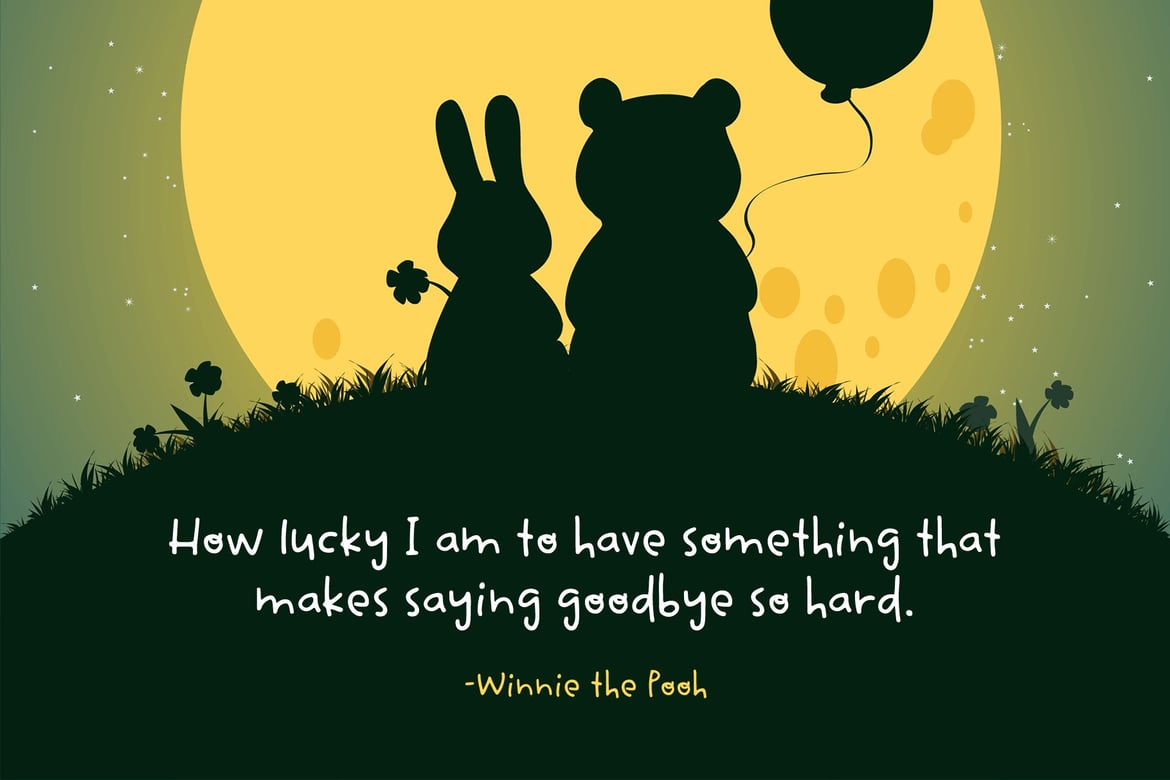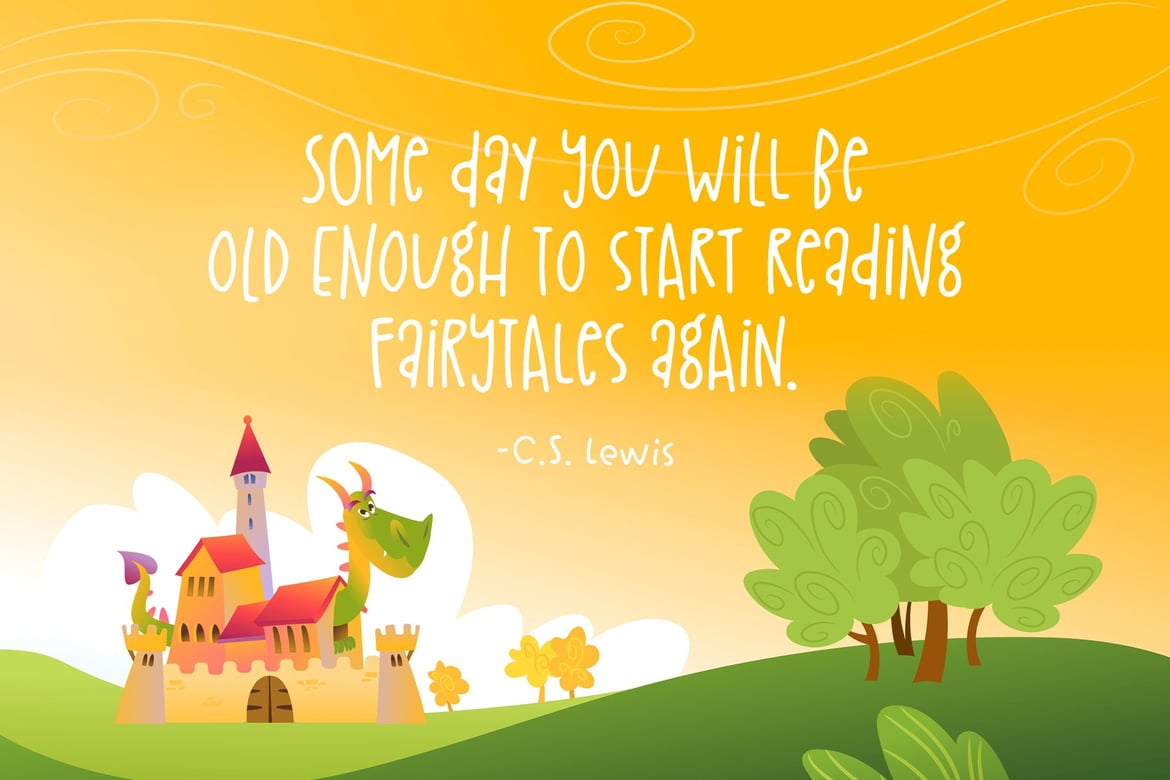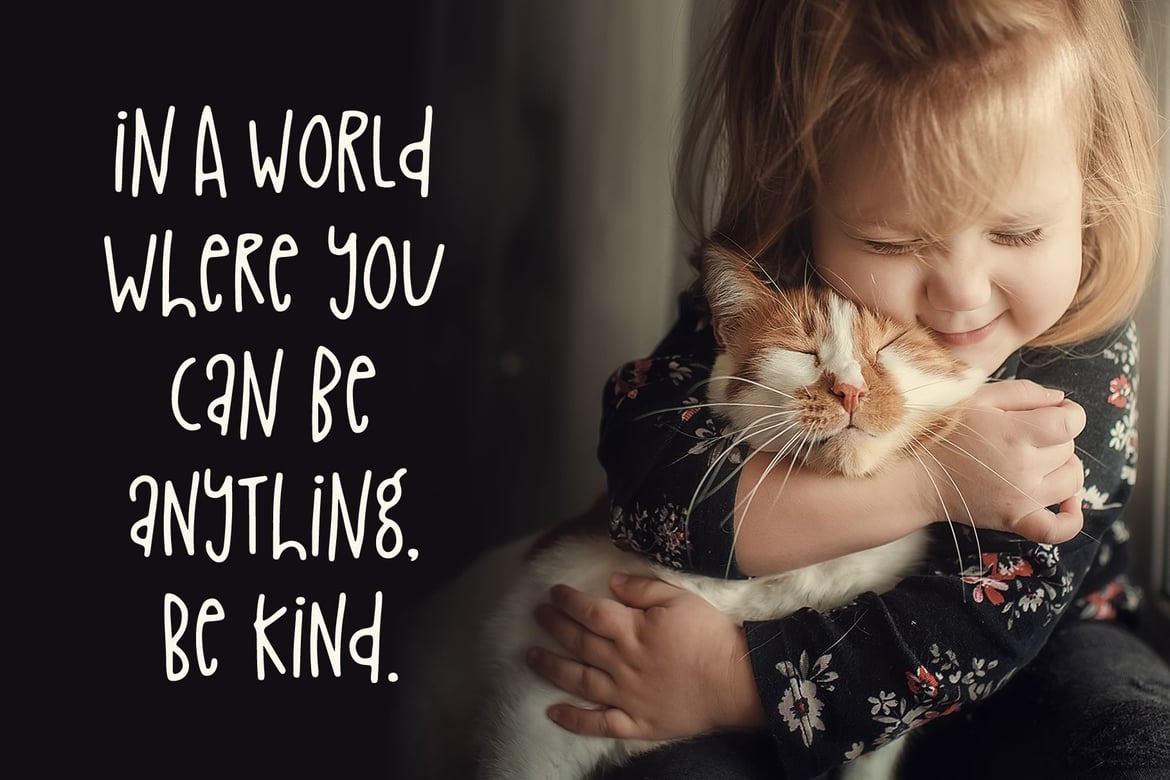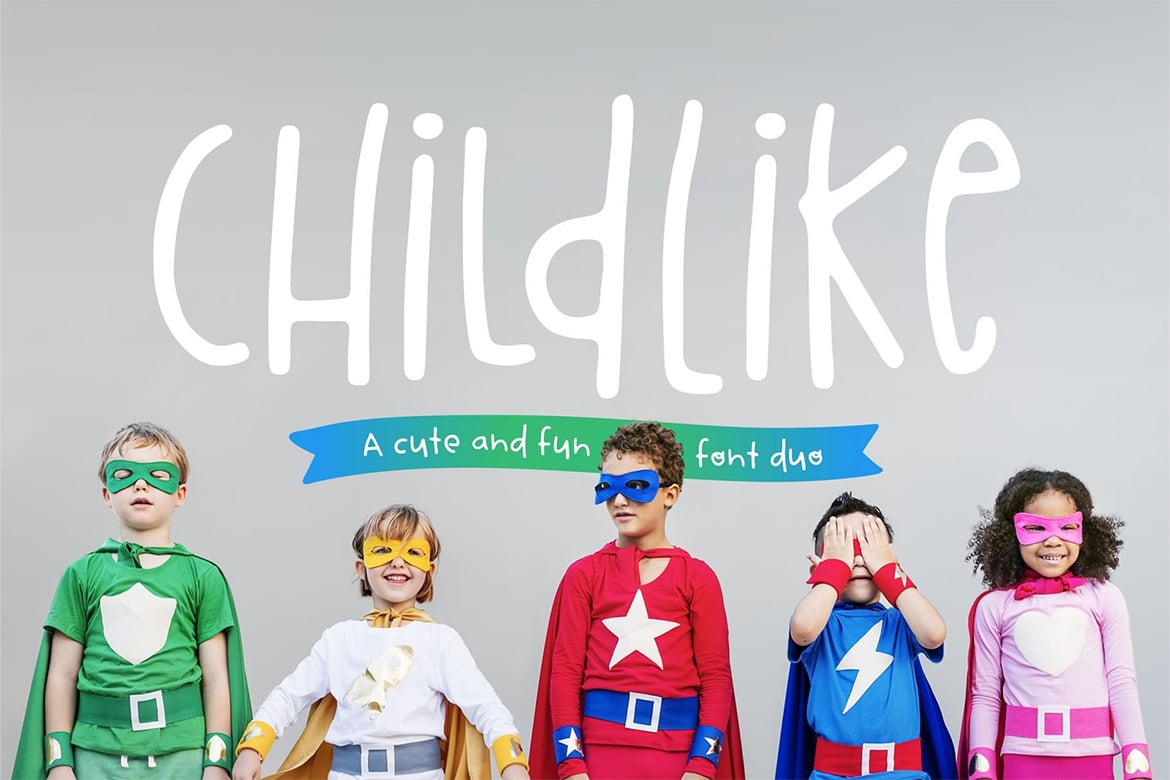
Childlike Font Duo
Childlike is an adorable handwritten font in two styles. Their childlike style can add a sweet and innocent touch while still looking polished. The two versions can be paired together but also work great on their own.